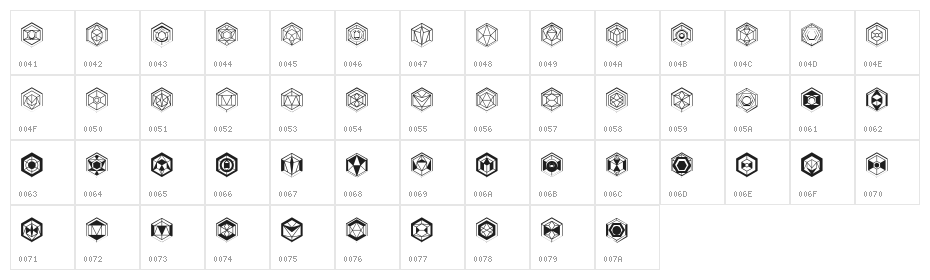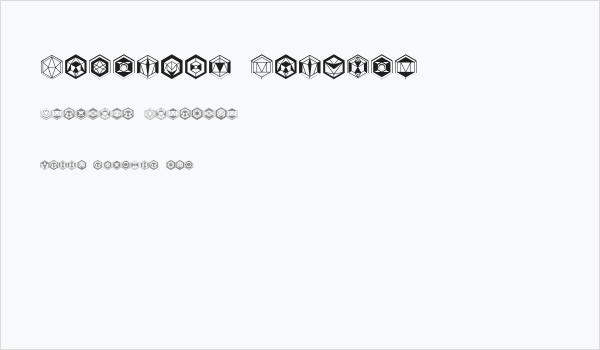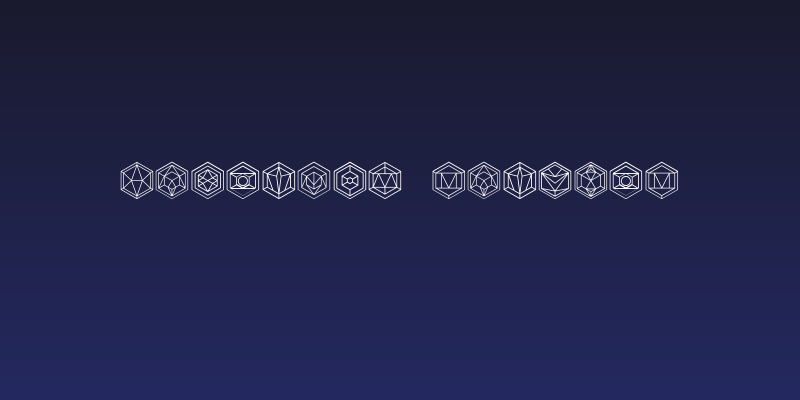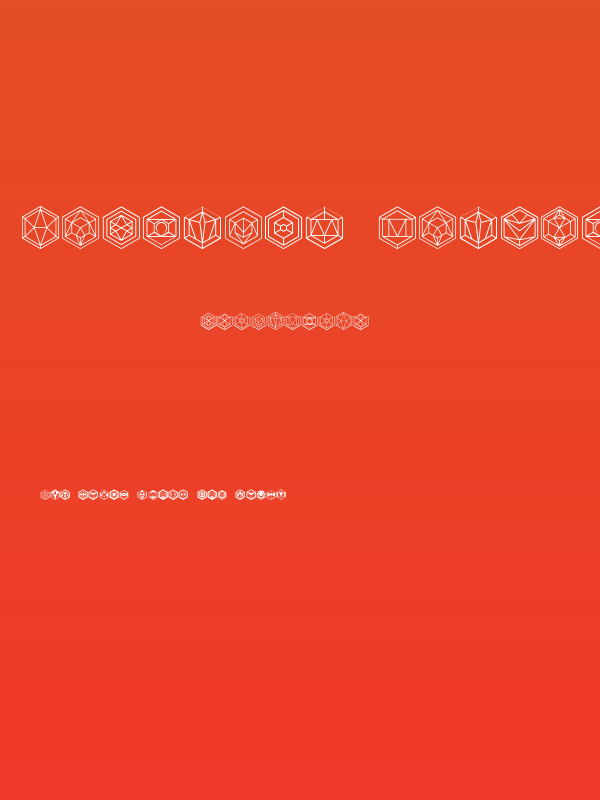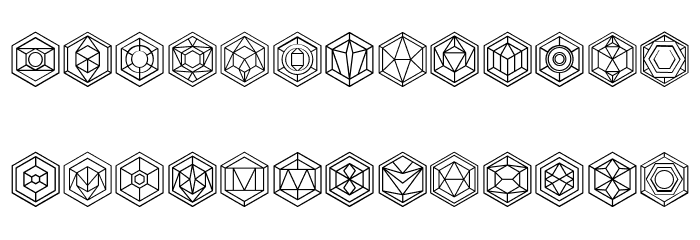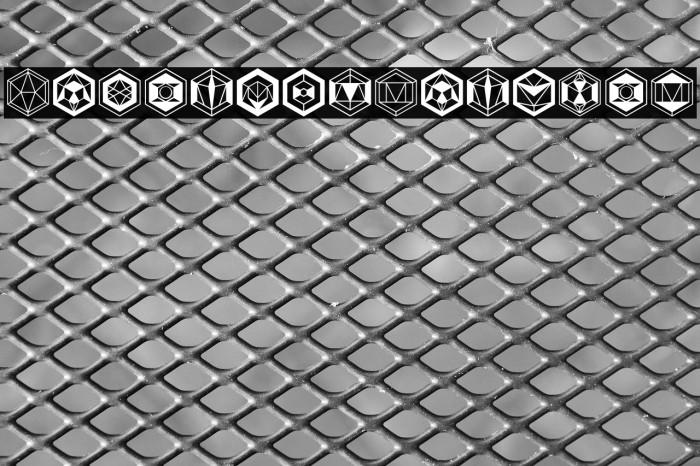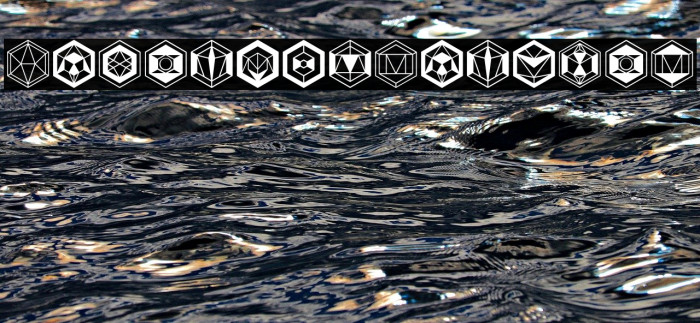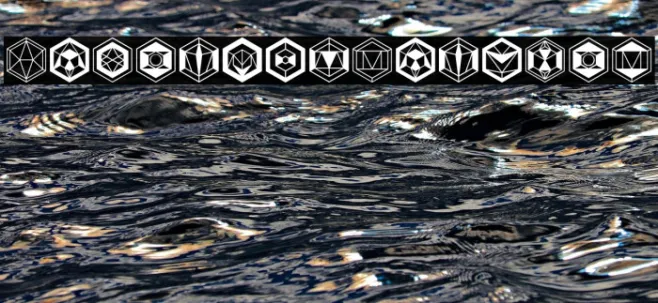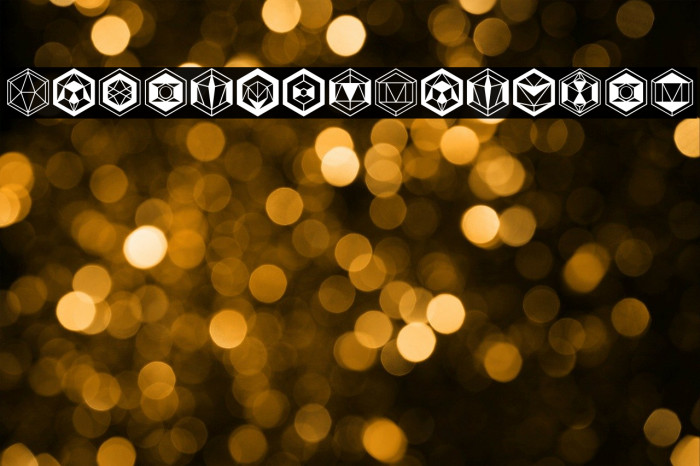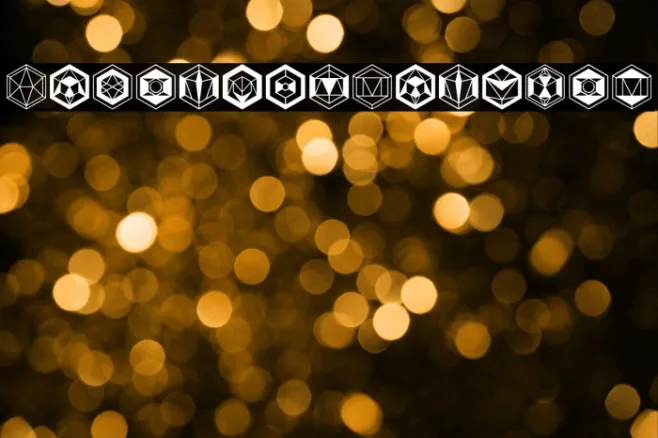
Hexagons Regular Font
Hexagons Regular Description
This font features a unique and intricate design where each character is encapsulated within a hexagonal shape. The characters themselves are abstract, composed of geometric patterns and lines, creating a futuristic and decorative appearance. The use of bold lines and varying thicknesses within the hexagons adds depth and visual interest. This font is highly stylized, making it suitable for creative and artistic projects that require a modern and distinctive look. The consistent hexagonal theme across all characters provides a cohesive and uniform aesthetic.
| Use Case | Logos, Posters, Digital Art |
| Proposed Projects | Ideal for branding, logos, posters, and digital artwork where a modern and artistic touch is desired. |